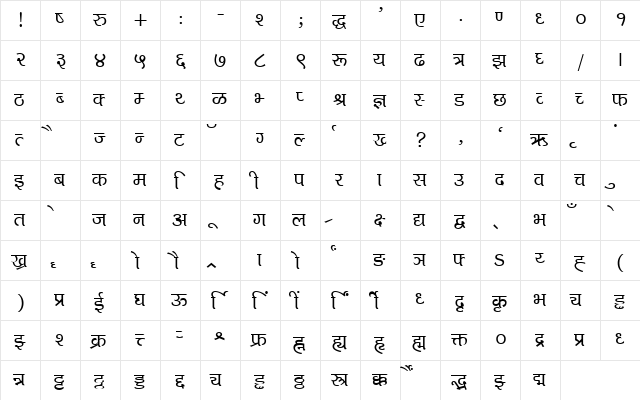
Kruti Dev 714 Normal
Design Context for Kruti Dev 714 Typeface
Kruti Dev 714 takes a measured approach to typography — its balanced proportions and neutral character make it a reliable workhorse for both digital and print work.
Pro Tip: Use Kruti Dev 714 in both headline and body roles to test its range before committing to a single application.